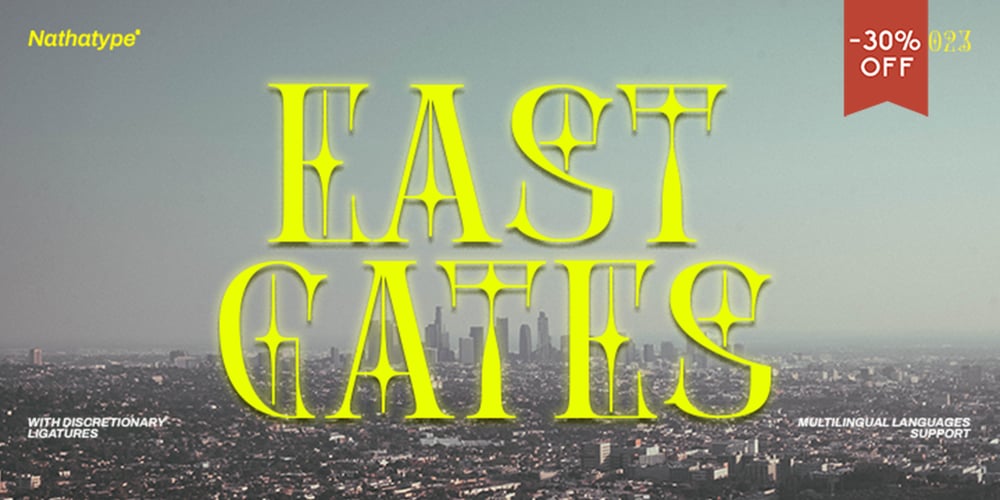
East Gates Font Family was designed by Donis Miftahudin and published by Nathatype. East Gates contains 1 styles and family package options. East Gates is a mesmerizing display font that commands attention. Each letter is a work of art, meticulously crafted to elevate the overall appearance with a perfect blend of visible contrast and intricate details.The characters in East Gates boast a generous size, ensuring a bold and impactful presence. The visible contrast between thick and thin strokes adds a dynamic quality to the font, creating a sense of both strength and delicacy. What sets East Gates apart is the enchanting ornamentation gracing the letters, enhancing the overall beauty with a touch of intricate design. Enjoy the features here.Features: Multilingual Supports PUA Encoded Numerals and Punctuations East Gates fits in headlines, logos, posters, flyers, branding materials, greeting cards, print media, editorial layouts, and many more designs. Find out more ways to use this font by taking a look at the font preview.Thanks for purchasing our fonts. Hopefully, you have a great time using our font. Feel free to contact us anytime for further information or when you have trouble with the font. Thanks a lot and happy designing.